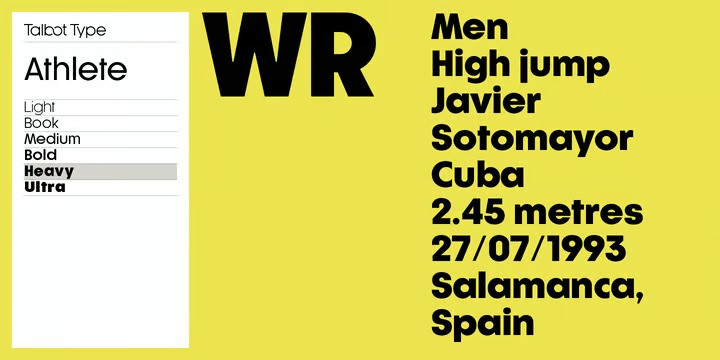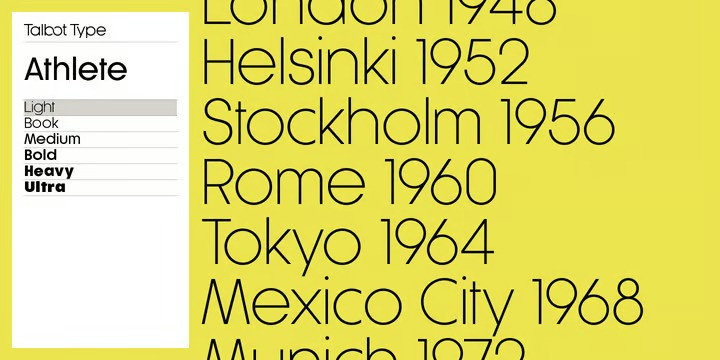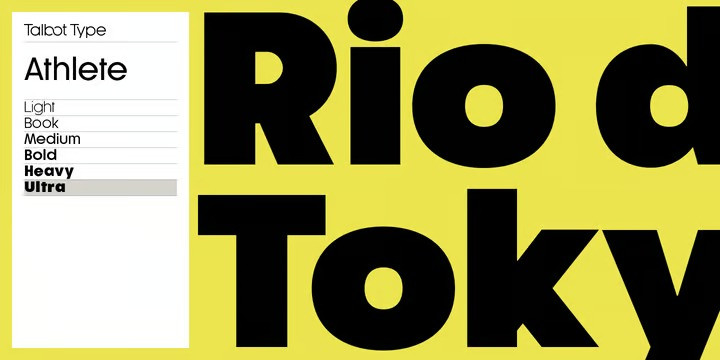
Athlete Font
Athlete Font is a highly legible, geometric text and display font. Inspired by classic sans-serifs Futura and Gill Sans, this elegantly minimal typeface blends traits of these twentieth century classics and is available in a comprehensive family of six weights.
It includes old style non-aligning (lower case) numbers, both proportional and tabular, as well as accented characters for Central European languages.
A versatile, contemporary sans-serif, Athlete is suitable for more-or-less any text or display purpose.